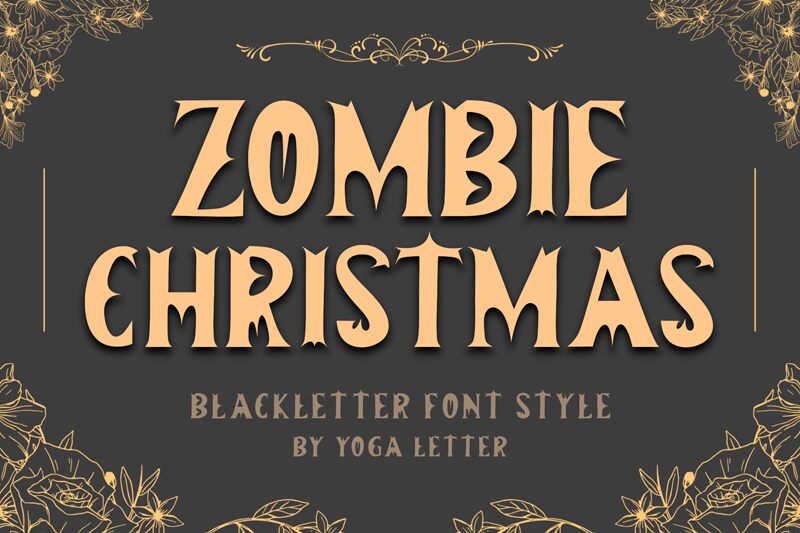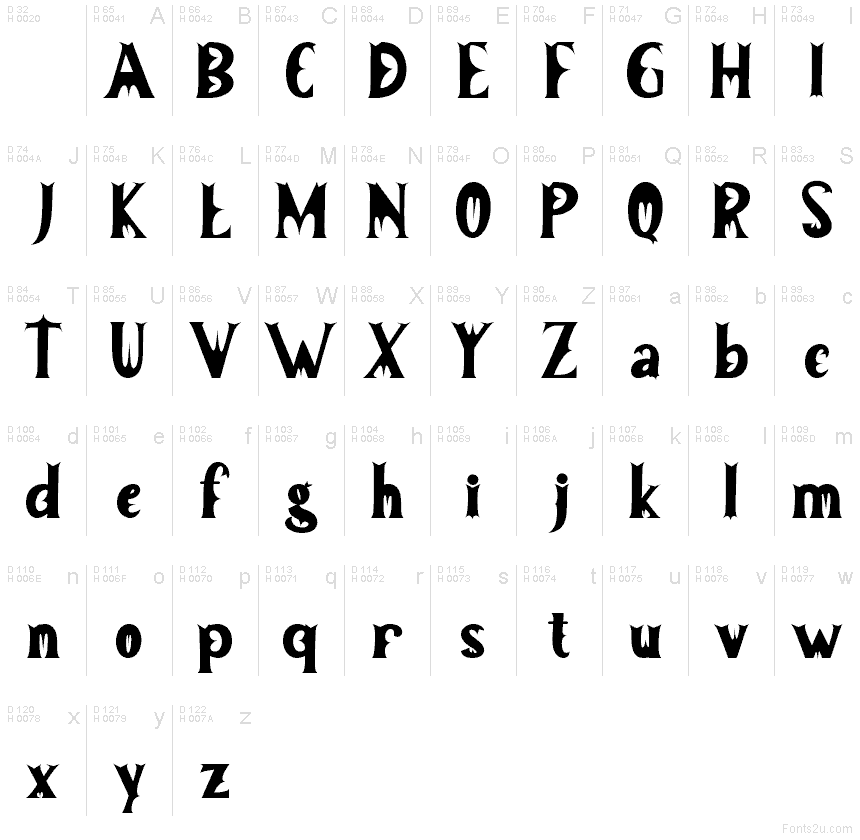
Zombie Christmas
Zombie Christmas font by Yoga Letter is a free Halloween holiday typeface that mashes up creepy and festive in one quirky look. Chunky, uneven letterforms feel like they’ve been cut from shadowy paper, with soft curves that keep things fun rather than gory. It’s spooky, but with a wink—great when you want haunted-house energy wrapped in tinsel instead of blood.
Using Zombie Christmas, you can brand horror Christmas parties, seasonal escape rooms, spooky advent calendars, game titles, greeting cards, stickers, and social media promos. This free font holds up best at larger sizes where its jagged edges and inky silhouettes can really show. For balance, pair Zombie Christmas with a clean geometric sans for body text to keep your layouts readable and bold.